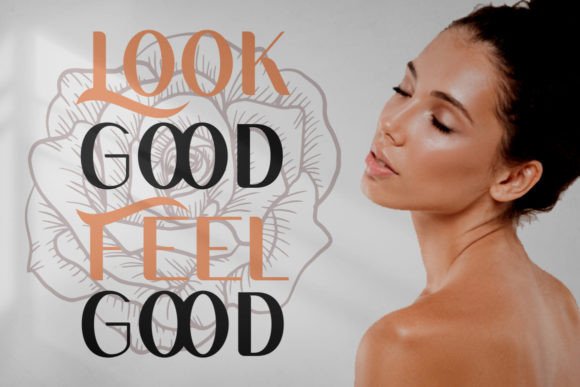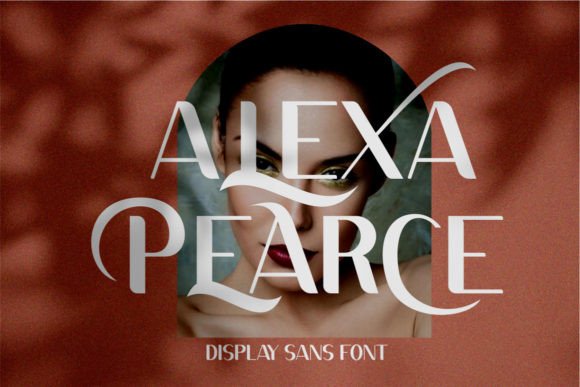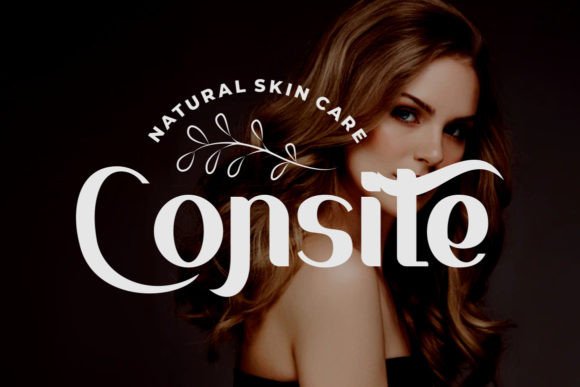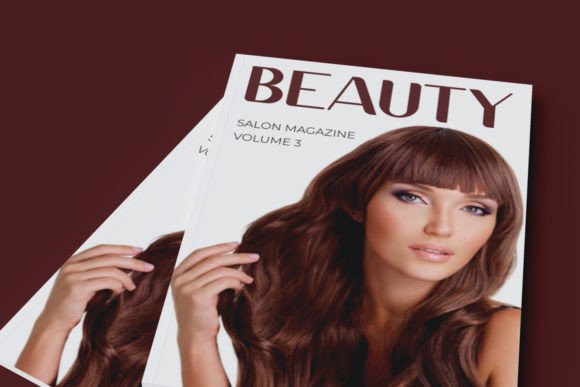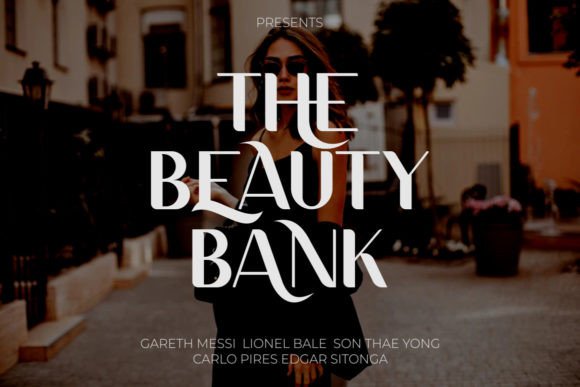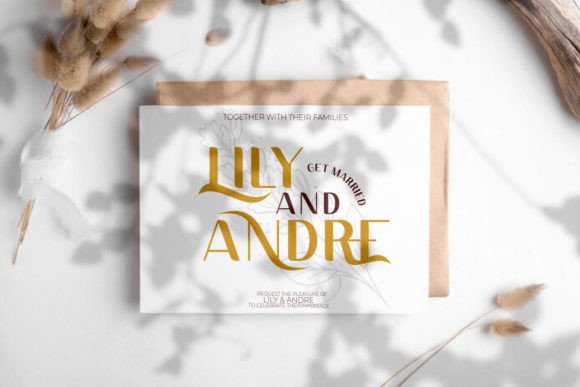
Introduction to Sans Fierro Font Font
Fonts play a crucial role in design, and the Sans Fierro Font font is a typeface that brings both character and versatility to any project. Whether you’re working on a branding project, a website, or a print design, the Sans Fierro Font font offers a unique style that can elevate your work.
Sans Fierro is a cool and trendy sans serif font.
Masterfully designed to become a true favorite, this font has the potential to bring each of your creative ideas to the highest level Sans Fierro is PUA encoded which means you can access all the glyphs and ligatures with ease.
Key Features of Sans Fierro Font Font
Why Choose Sans Fierro Font Font?
The Sans Fierro Font font is more than just a typeface – it’s a design tool that helps you communicate your message with style and clarity. Its unique character set and versatile design make it suitable for a wide range of applications, from elegant invitations to bold headlines.
With its carefully crafted letterforms and balanced proportions, the Sans Fierro Font font ensures readability and visual appeal across all mediums.
What makes Sans Fierro Font font special?
The Sans Fierro Font font stands out with its unique design, exceptional readability, and versatility across various design applications.